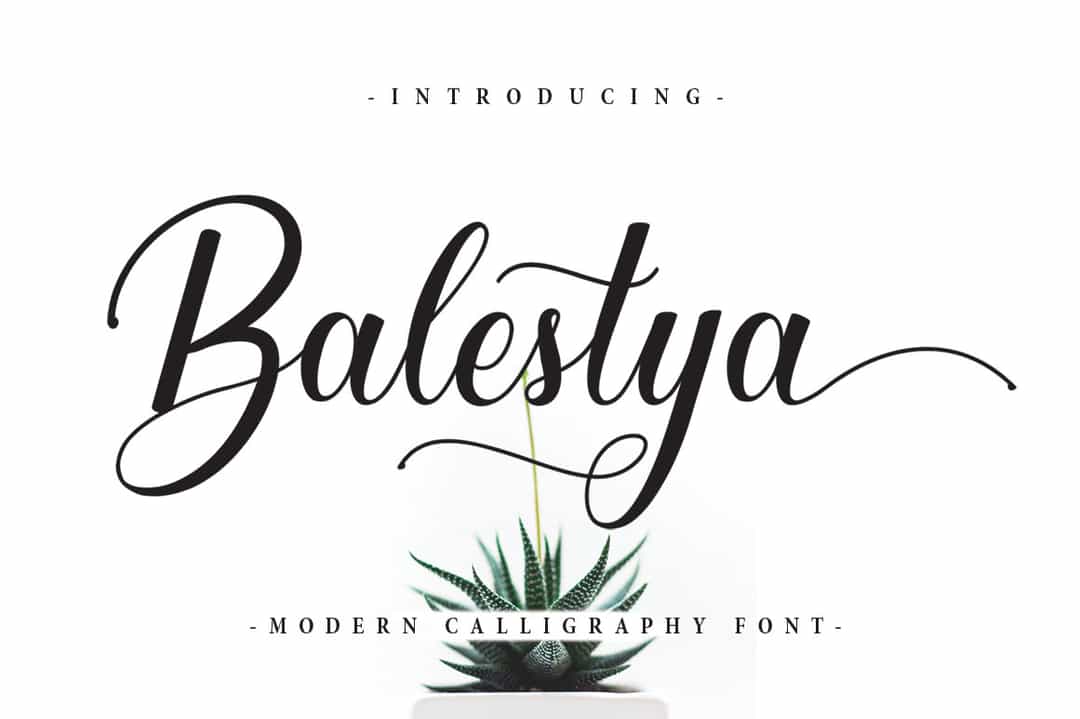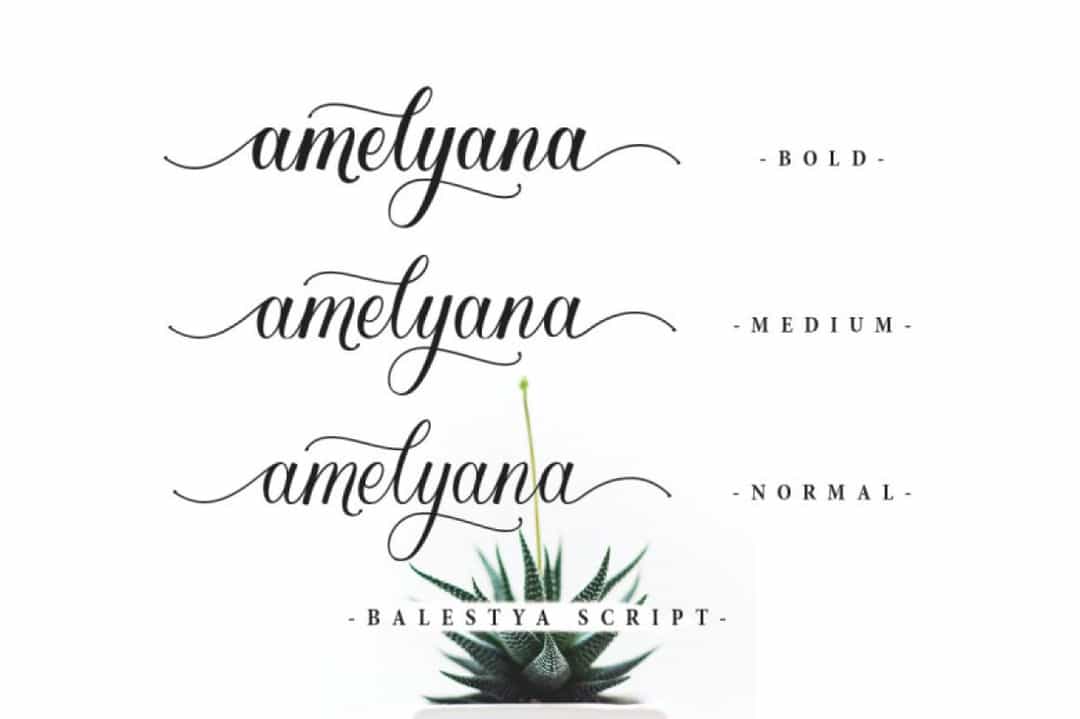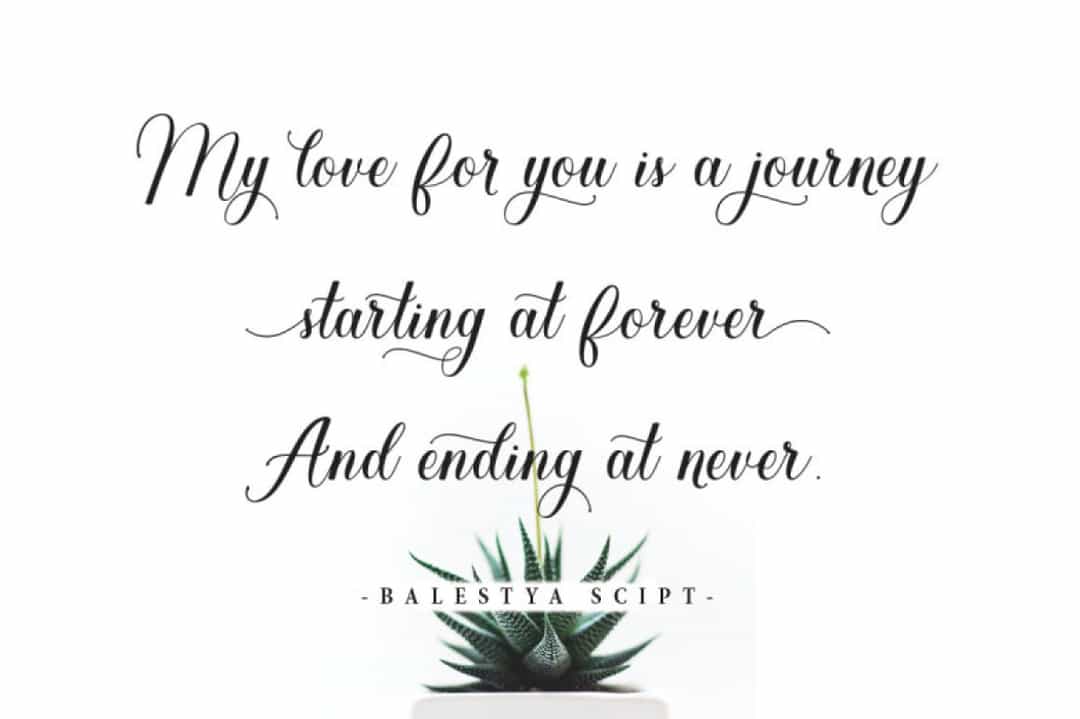
The Balestya font looks like a improved combination of the script and serif fonts and gives a beautiful look. It is slim but gives off a feminine vibe, still, it remains welcoming; Balestya font will be perfect for e-commerce stores, wedding shops, and name cards.